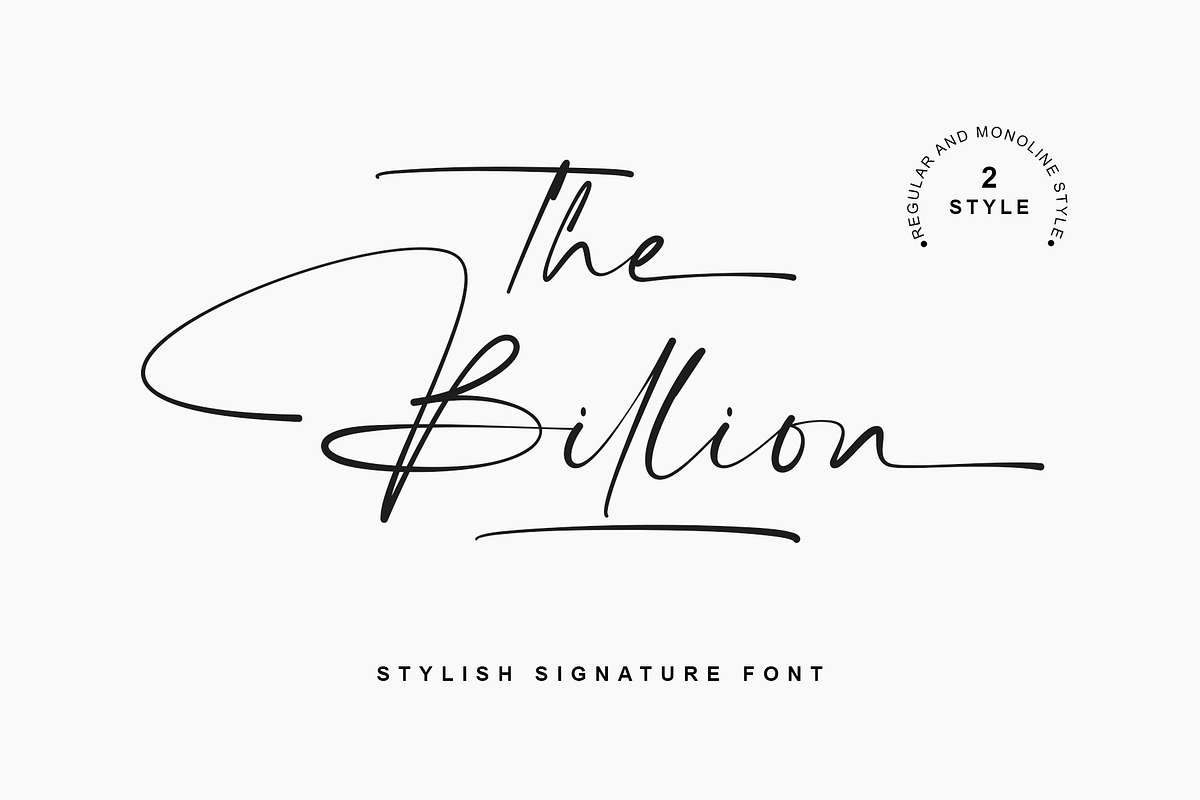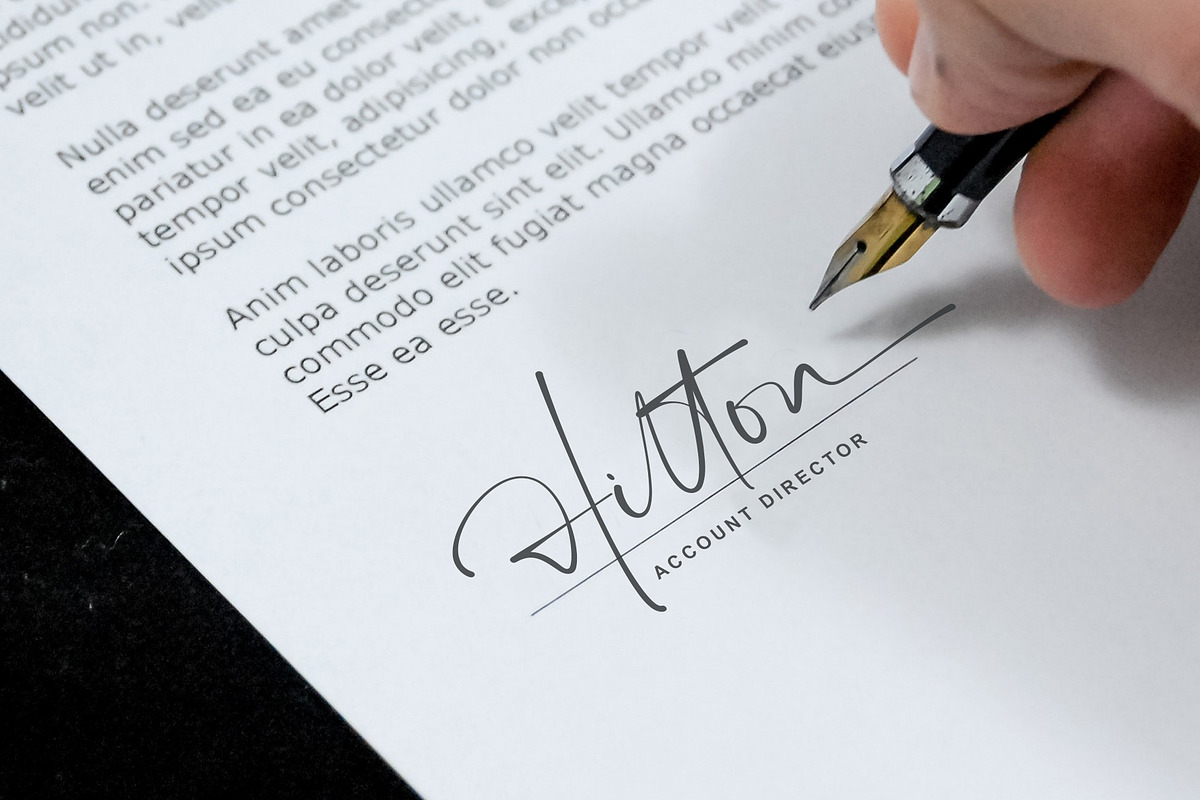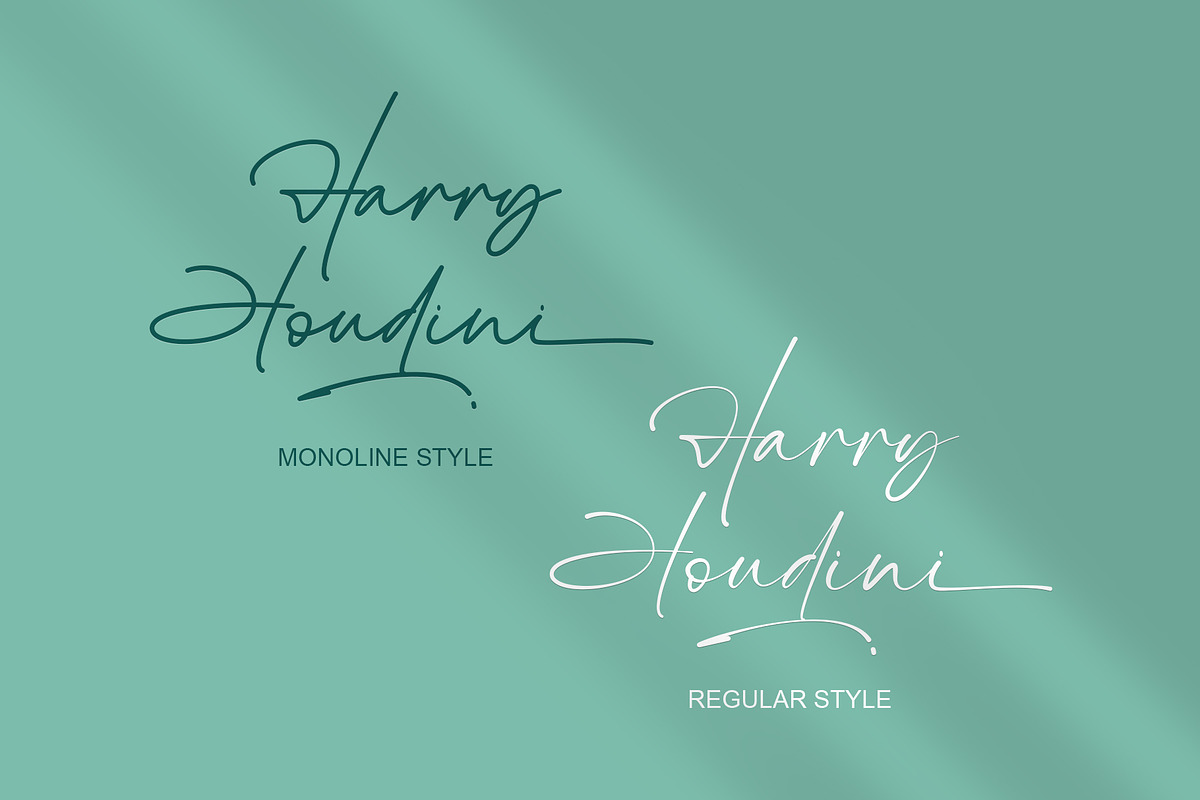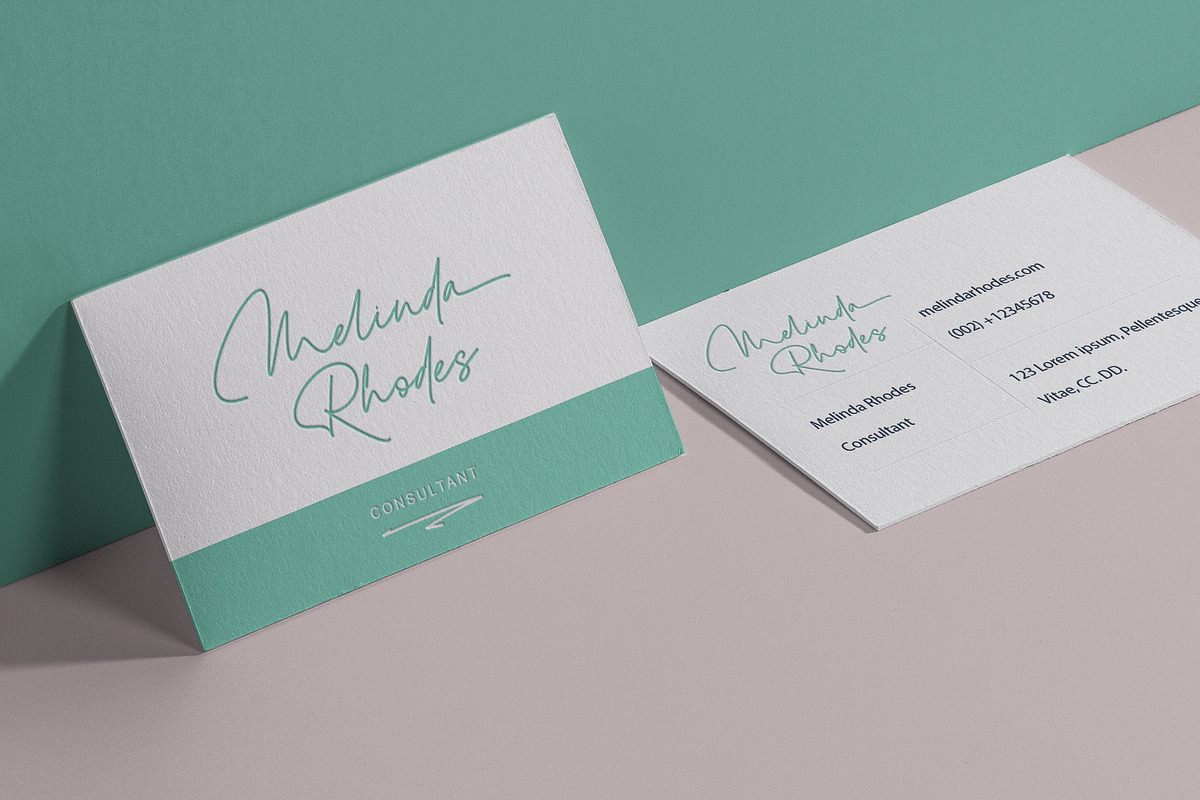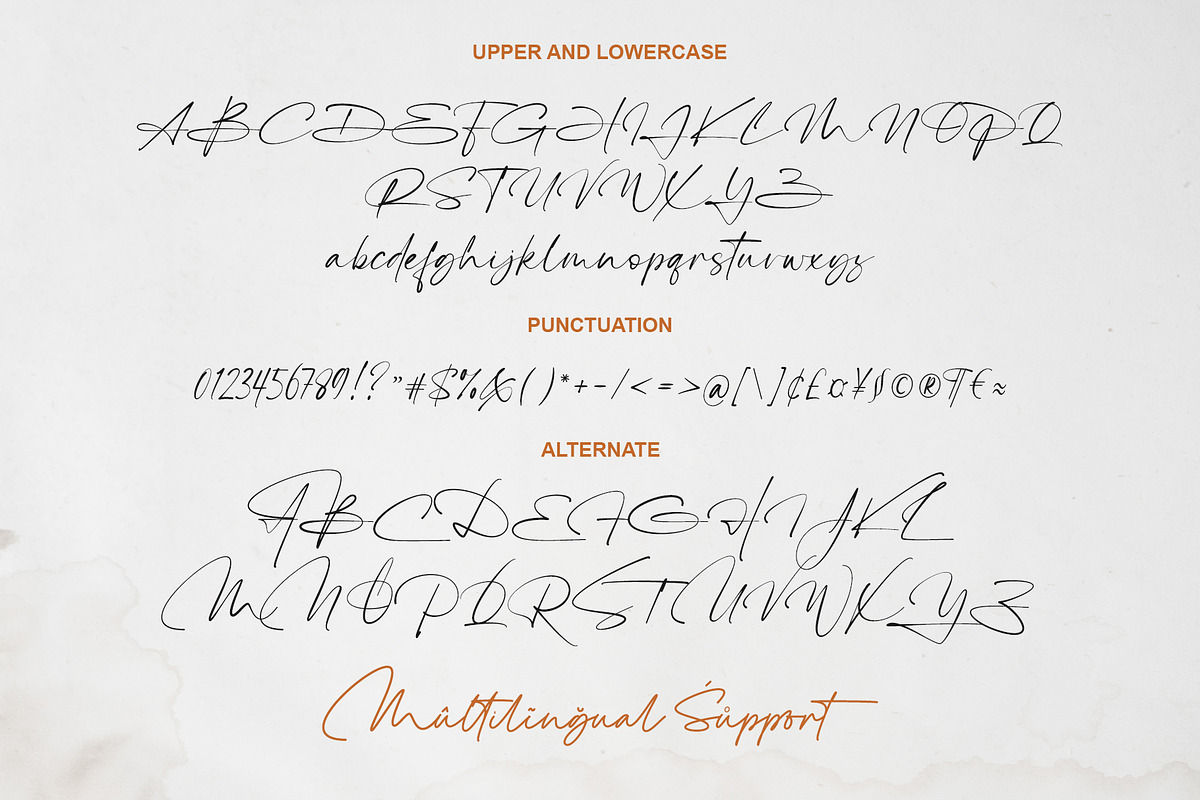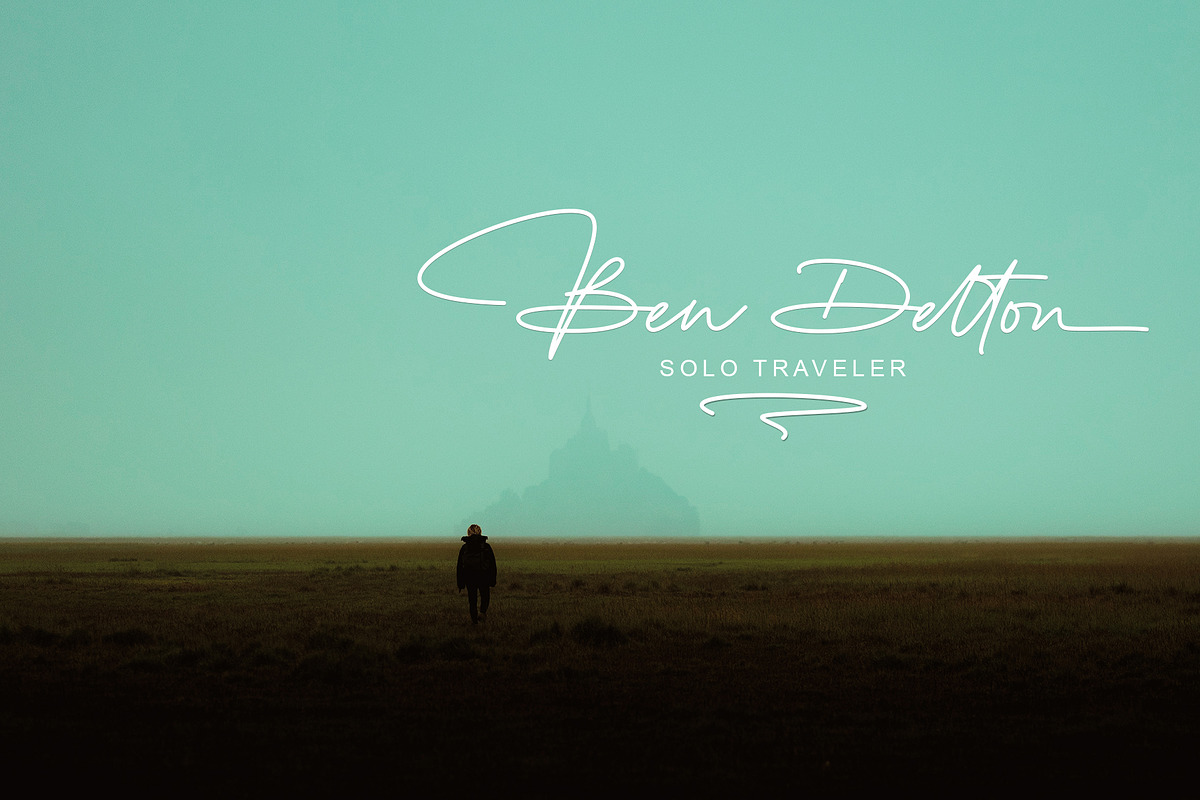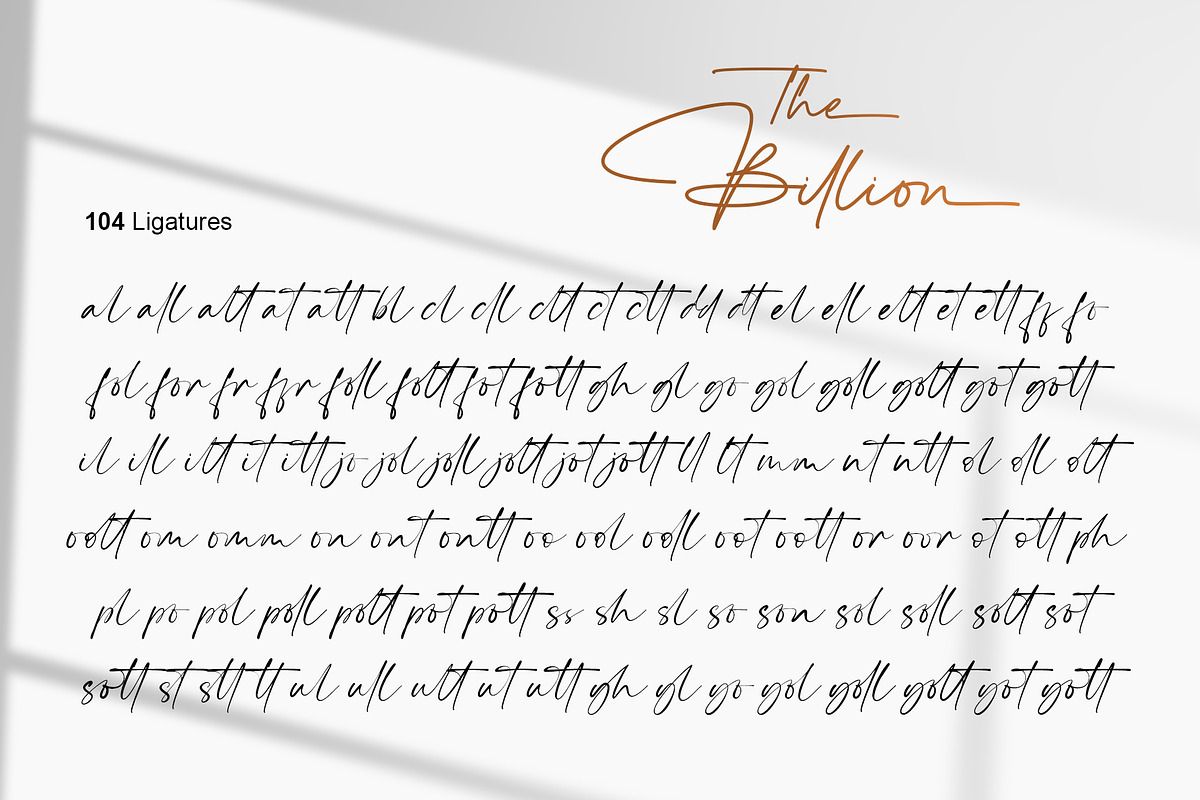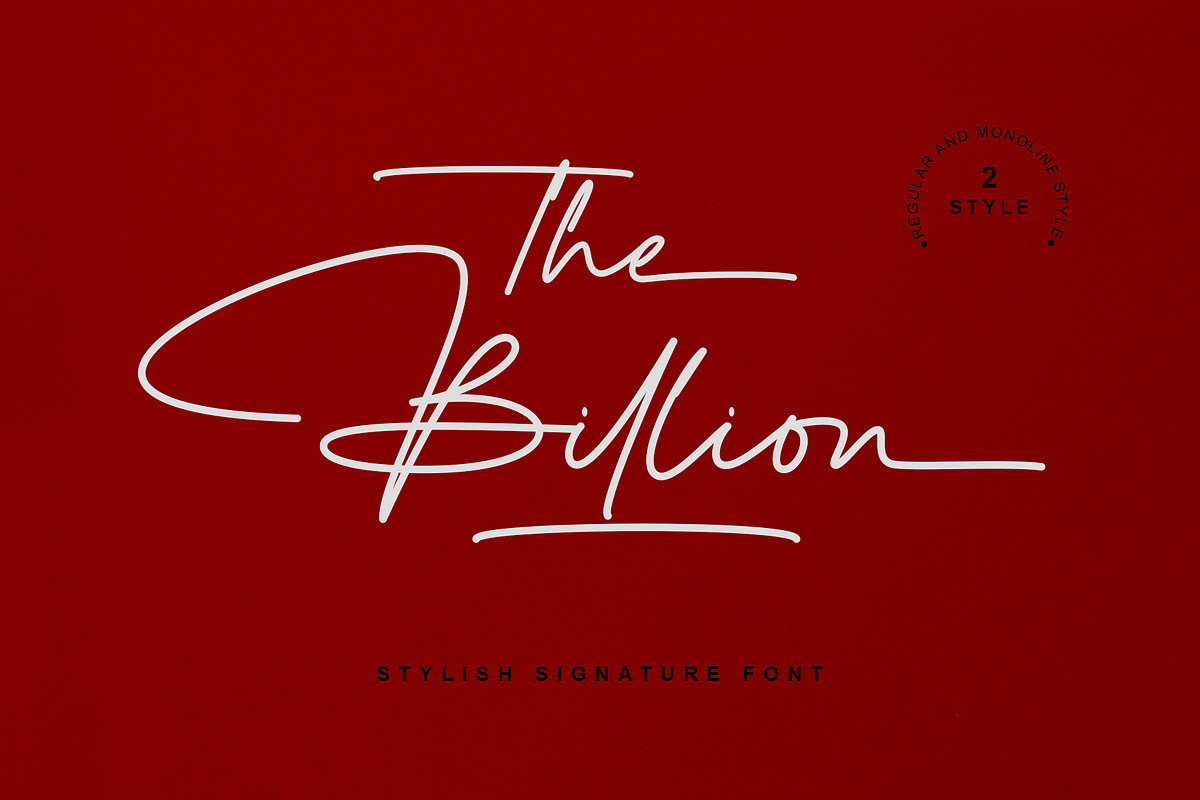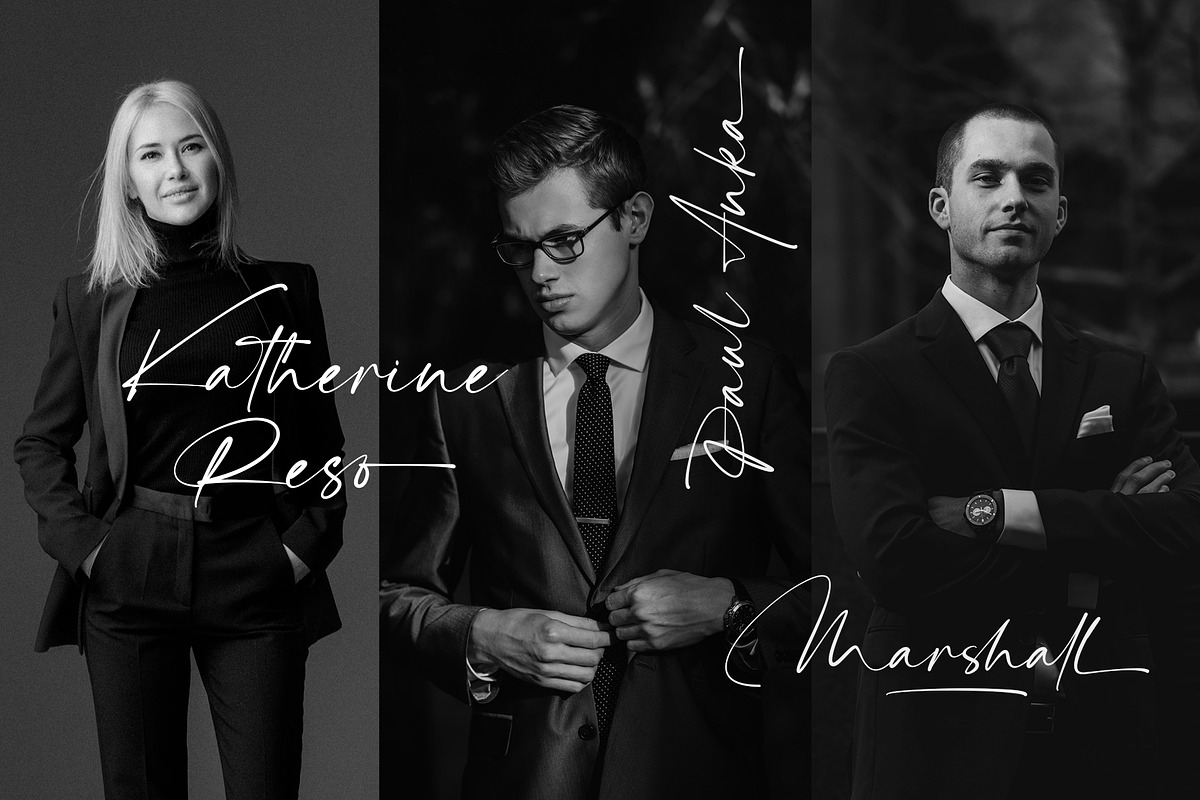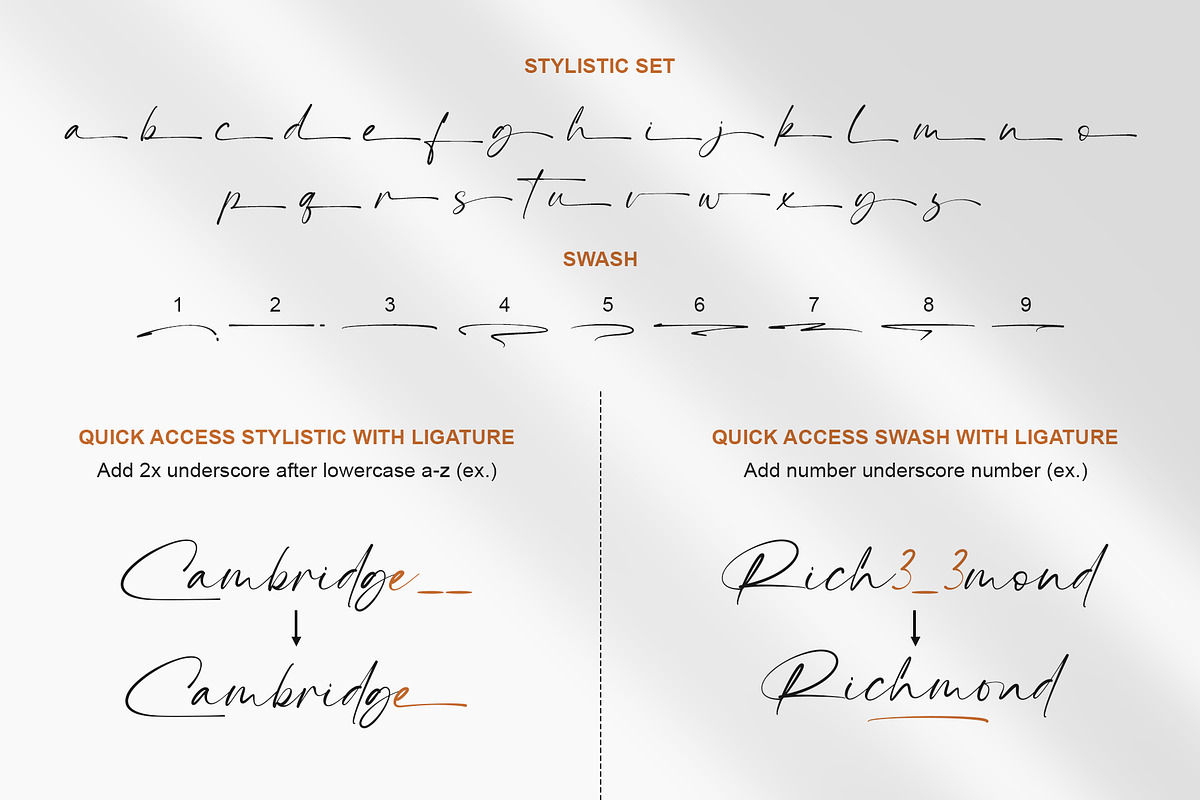
The Billion | Stylish Signature
The Billion is a perfect signature font, with 2 style (regular and monoline). The Billion Font is perfect for many different project such as logos & branding, invitation, stationery, wedding designs, social media posts, advertisements, product packaging, product designs, label, photography, watermark, special events or anything.
- 100+ Ligatures
- Stylistic Set
Quick access
- Stylistic Set: Add 2x underscore after lowercase a-z. Ex: a__
- Swash: Add number (1-9) + underscore + number (1-9). Ex: 1_1, 2_2, 3_3, 4_4, 5_5, 6_6, 7_7, 8_8, 9_9